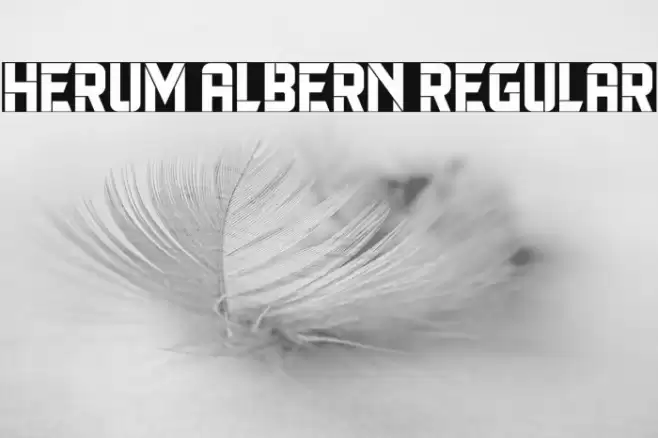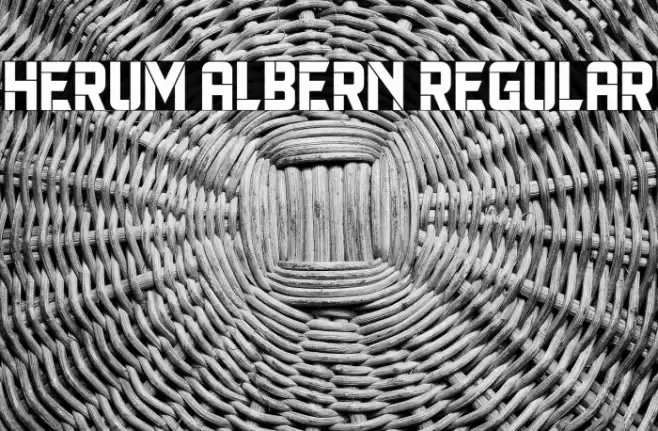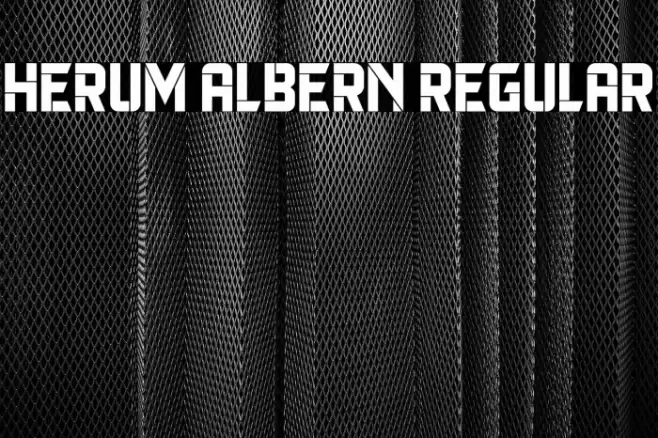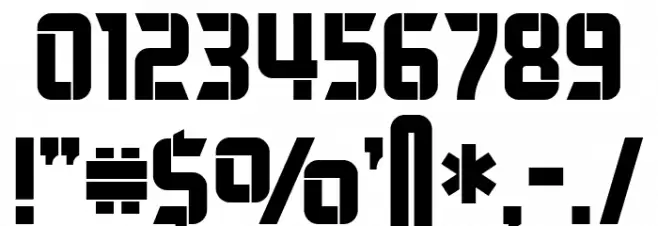
Herum Albern Regular Font
Herum Albern Regular Description
This font presents a bold and striking appearance with its geometric and angular design. Each character is crafted with sharp edges and a futuristic style, making it stand out with a unique, almost stencil-like quality. The uppercase letters are particularly prominent, with a consistent thickness throughout, giving a sense of uniformity and strength. The numbers and special characters maintain this boldness, ensuring a cohesive look across all glyphs. This font is ideal for projects that require a modern and impactful aesthetic.
A bold, geometric font with a futuristic and angular design from Uncategorized fonts.
- Proposed Projects: Perfect for branding, posters, video game graphics, and any project needing a modern, impactful look.